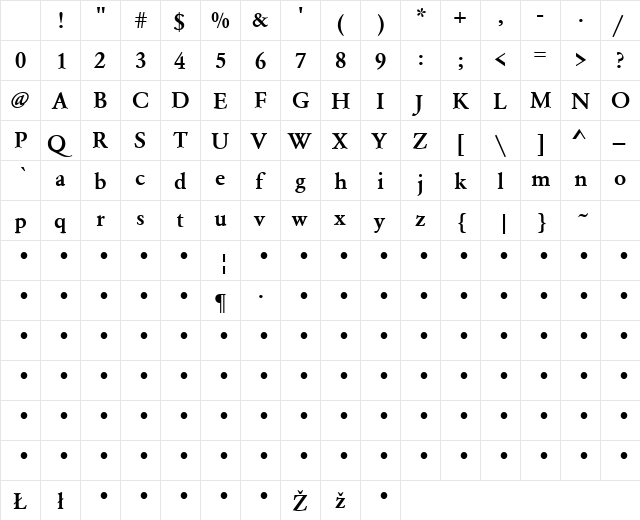
QTGaromand is a composed and adaptable typeface that performs quietly and consistently across a wide range of design contexts. Its bold stroke weight gives it real presence on the page.